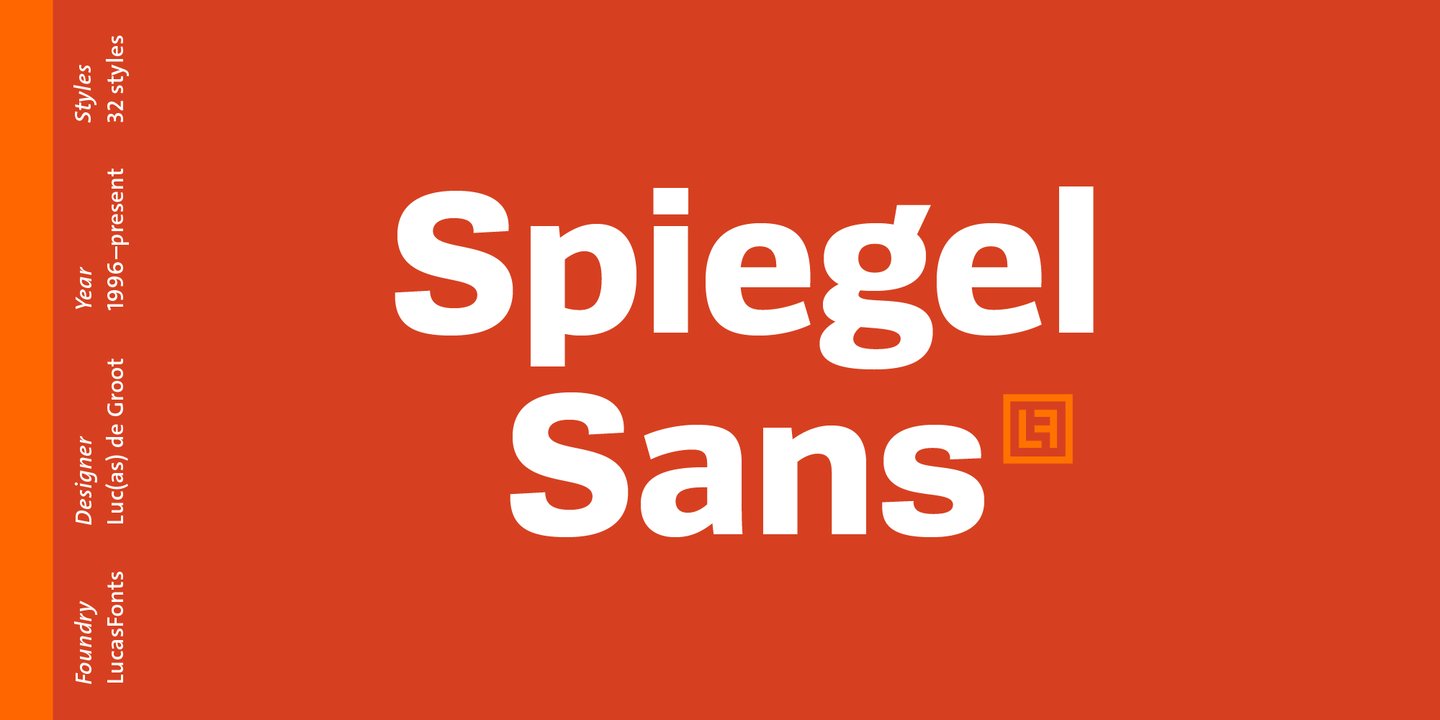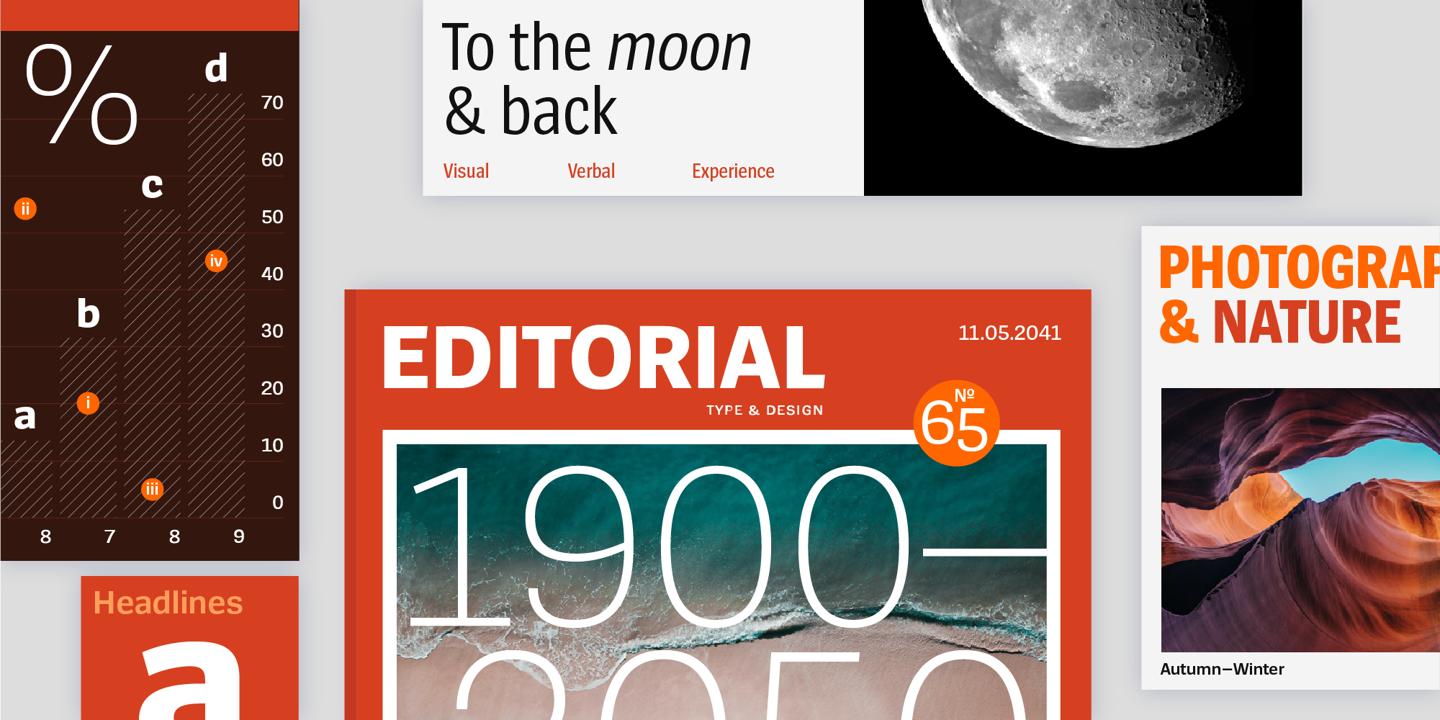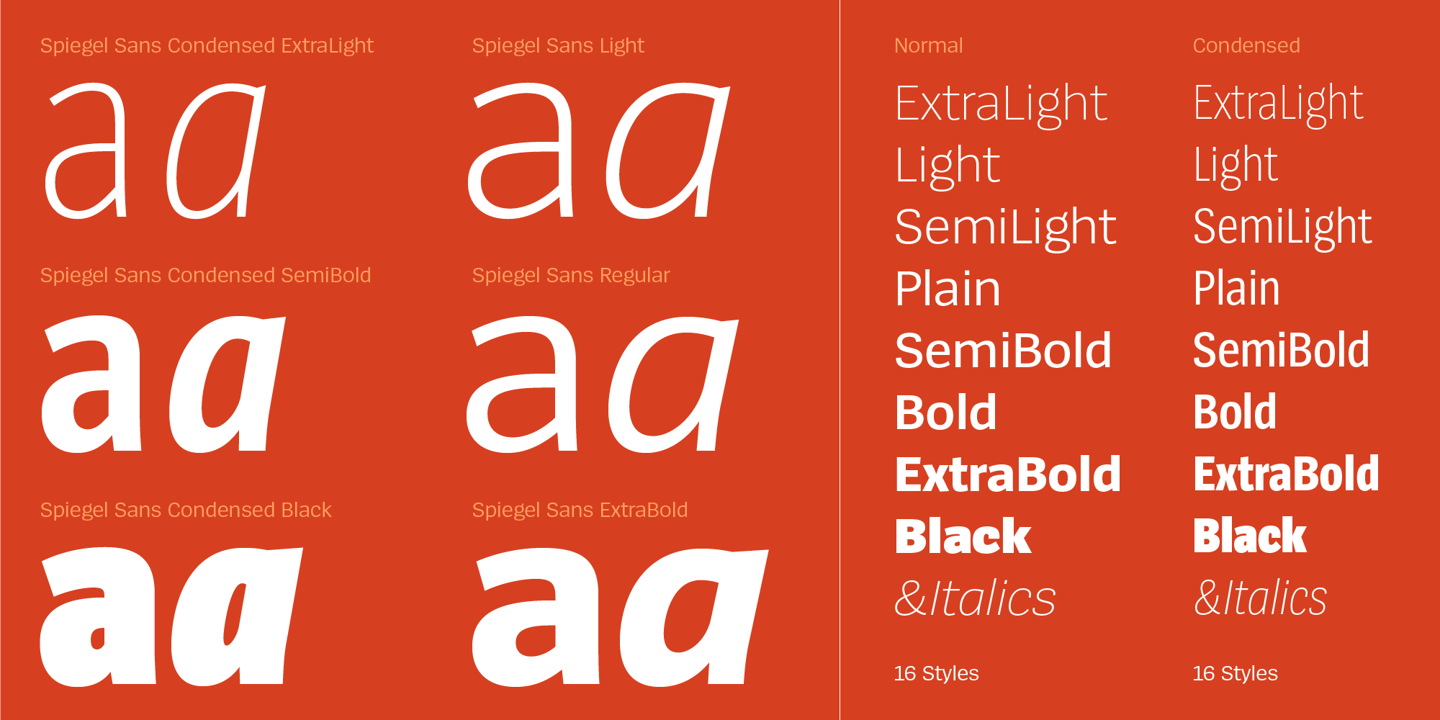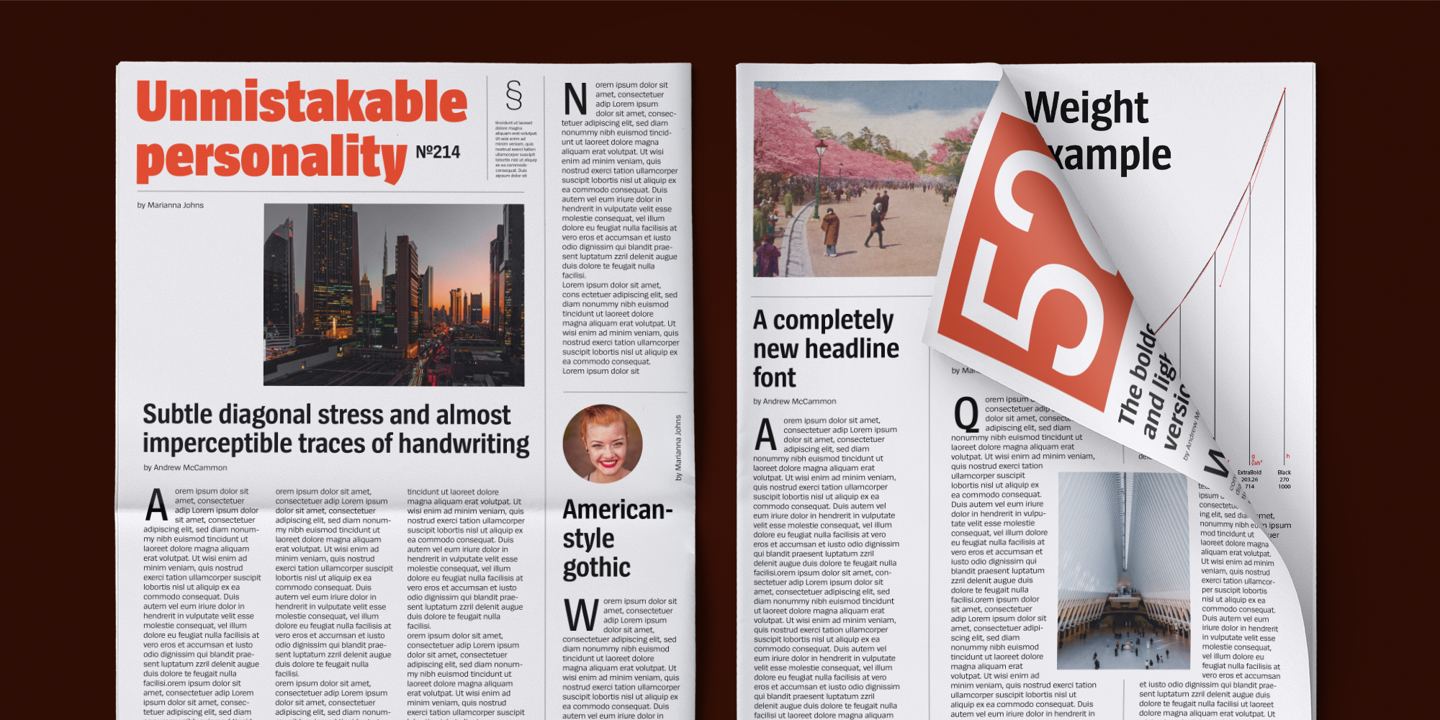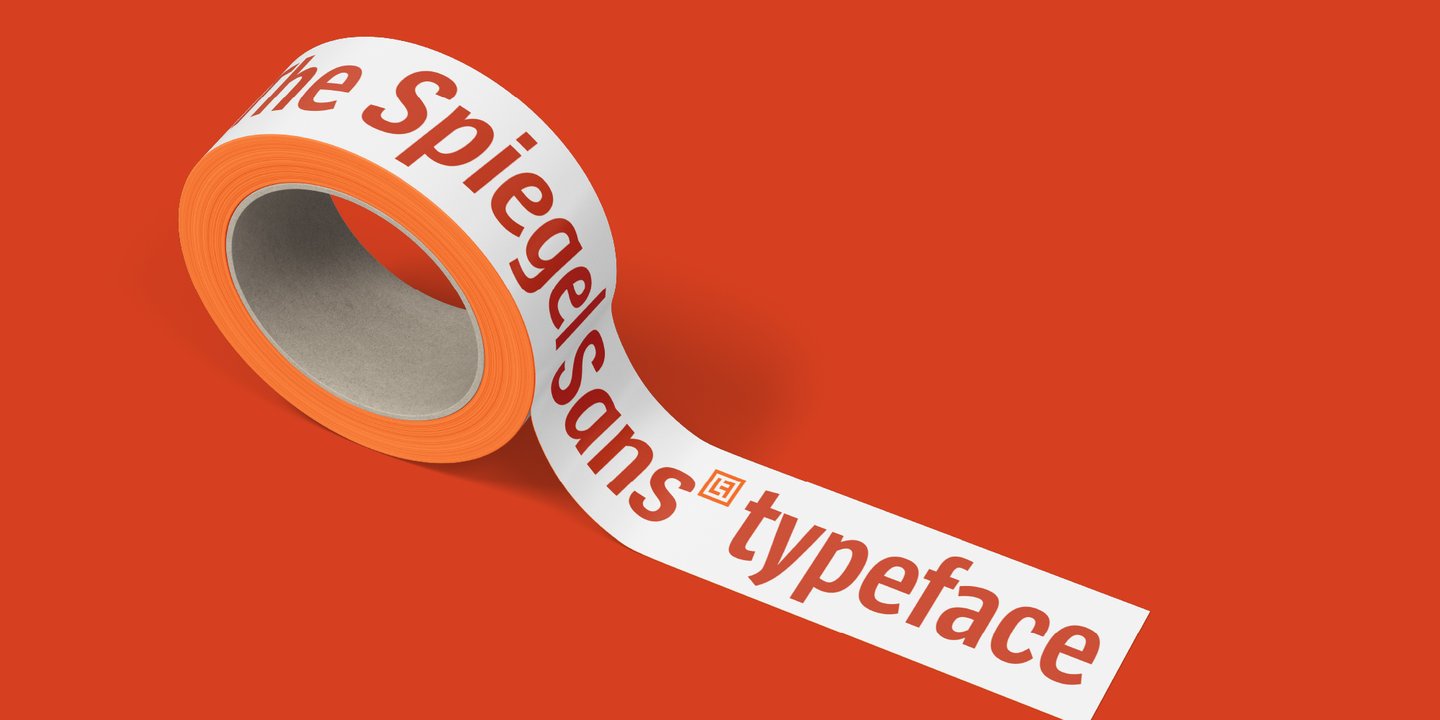
About the Spiegel Sans Font
About Spiegel Sans Font Family Spiegel Sans combines the shapes and proportions of an American-style gothic – the ultimate industrial typeface – with subtle diagonal stress and almost imperceptible traces of handwriting.